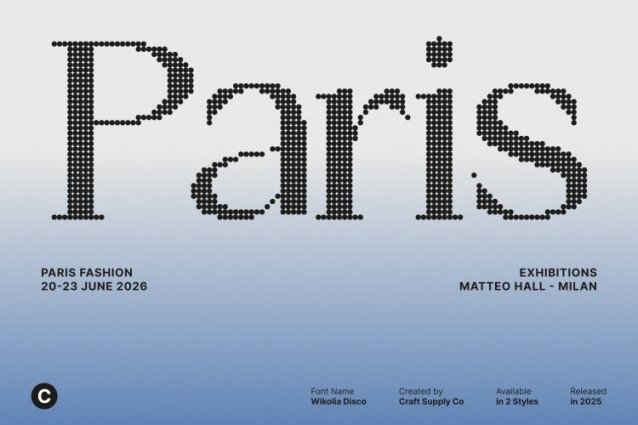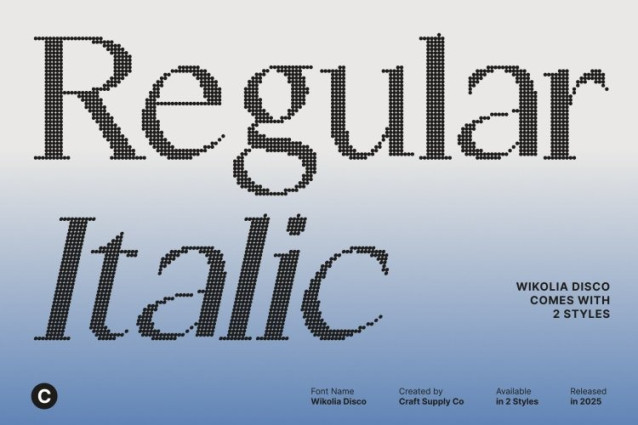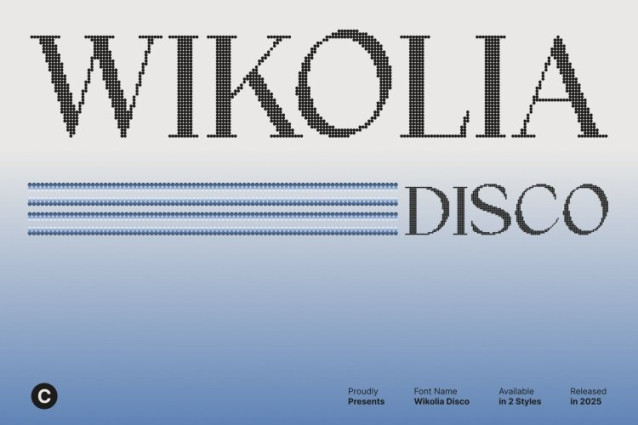
Wikolia Disco Font
Wikolia Disco Font This is a modern serif font crafted to balance versatility, elegance, and professionalism. Its refined letterforms showcase clean curves and contemporary serif details, creating a polished and sophisticated look. This graceful structure makes the font suitable for both high-end branding and stylish everyday design needs.
Stylish Shapes for Contemporary Visual Appeal
Each character is designed with thoughtful proportions that enhance readability while maintaining a fashionable aesthetic. The smooth flow of its serifs and the modern simplicity of its forms give a timeless yet current appearance. It fits beautifully in projects that aim to be classy, modern, and visually compelling.
Disco Sparkle Effect for Glamour and Visual Shine
Adding a touch of luxury, the disco sparkle effect infuses every letter with shimmering energy. This sparkling enhancement transforms the elegant serif foundation into a lively and glamorous display font. It introduces visual brilliance that catches the eye instantly and makes designs feel stylish and dynamic.
Perfect for Editorials, Logos, and Branding Projects
This font thrives in editorials, logos, branding, invitations, packaging, and creative promotional materials. Whether you’re designing a refined brand identity or crafting a polished editorial layout, this font delivers the perfect blend of elegance and sparkle.